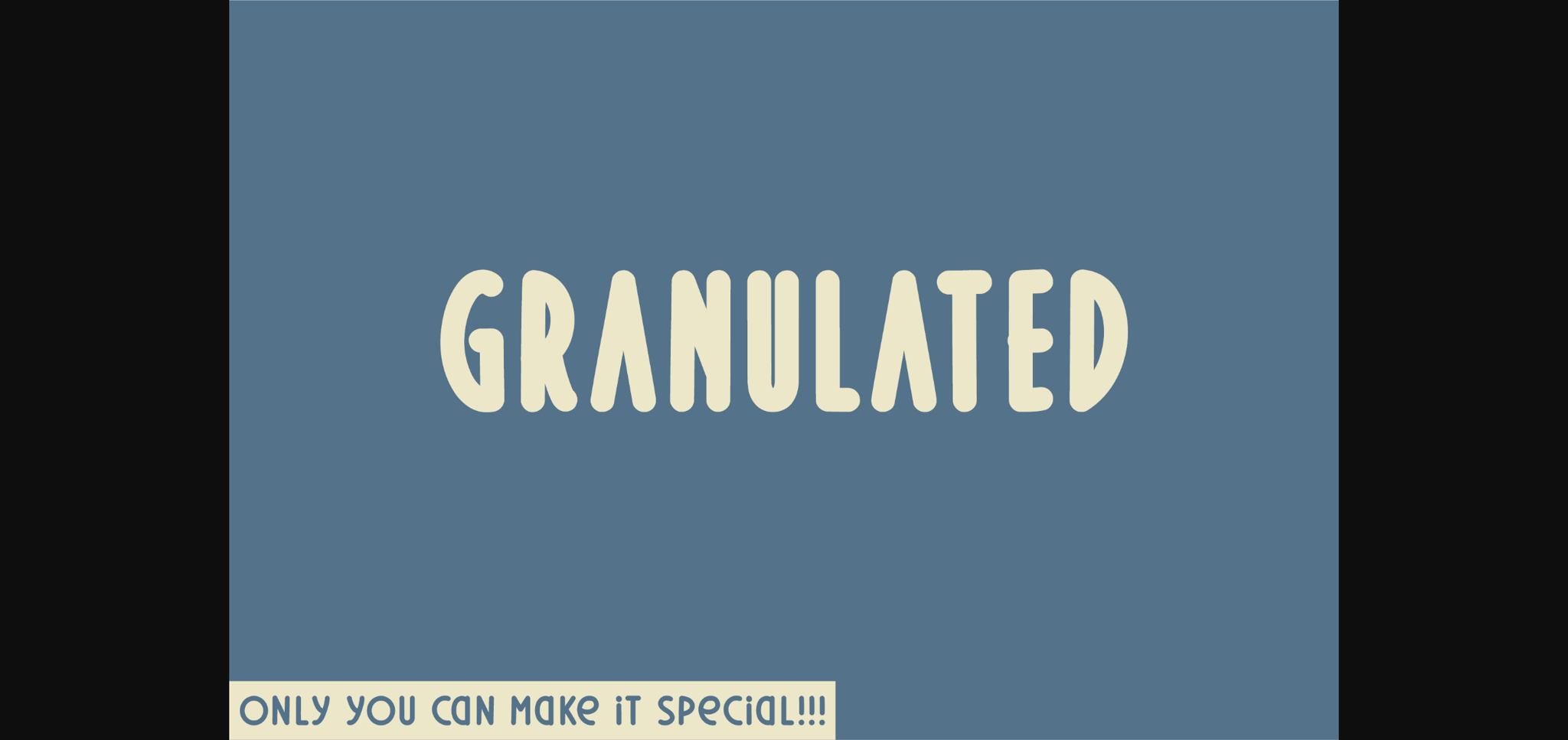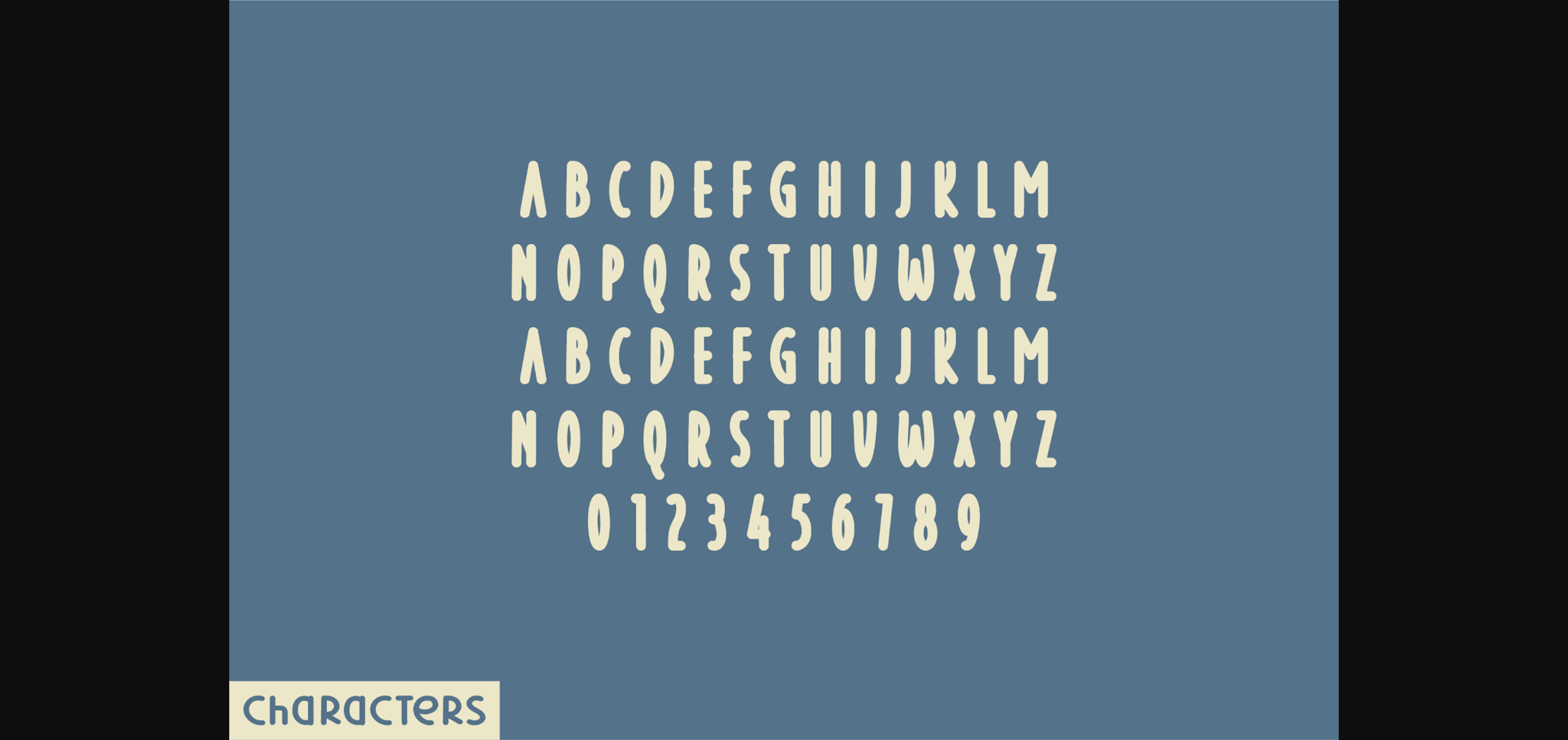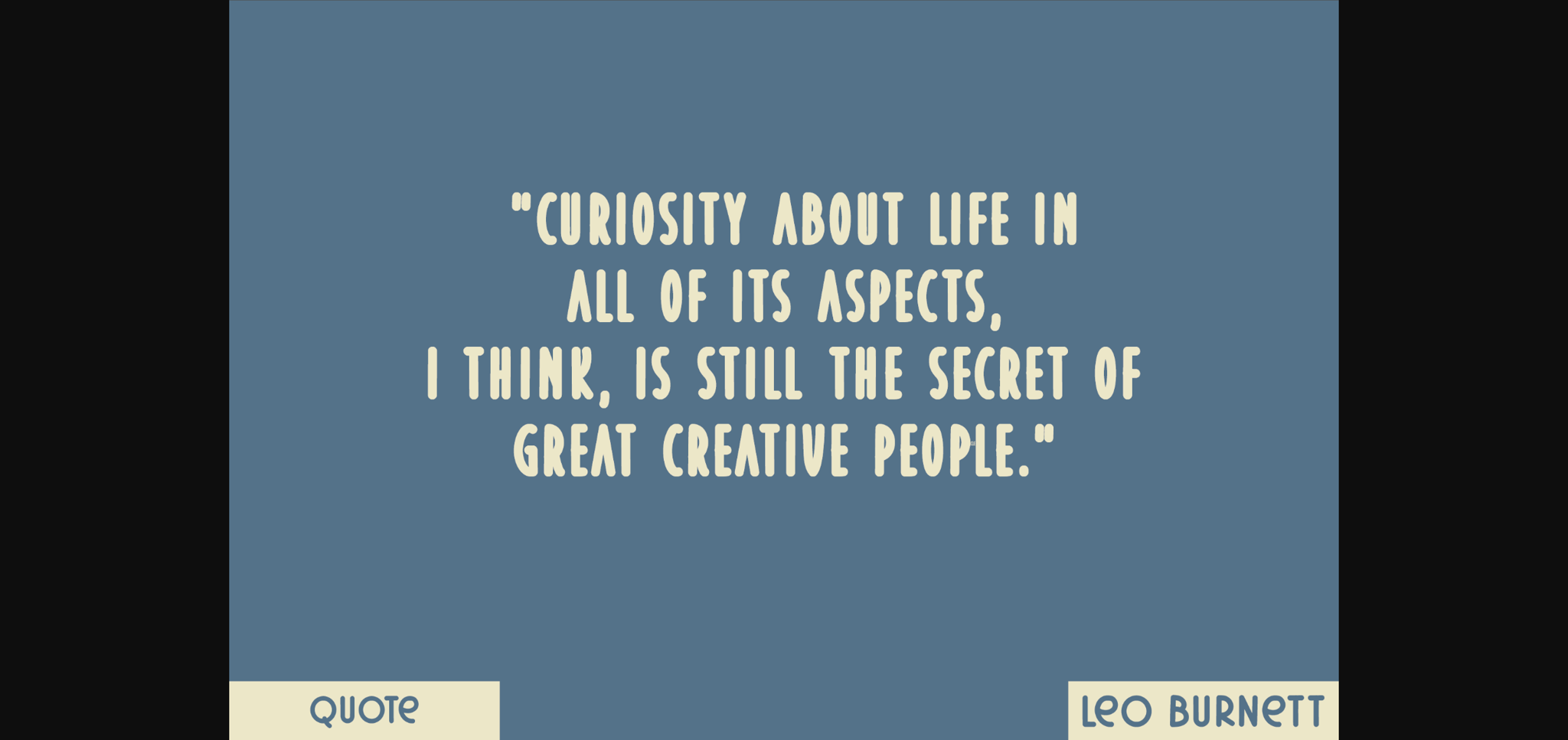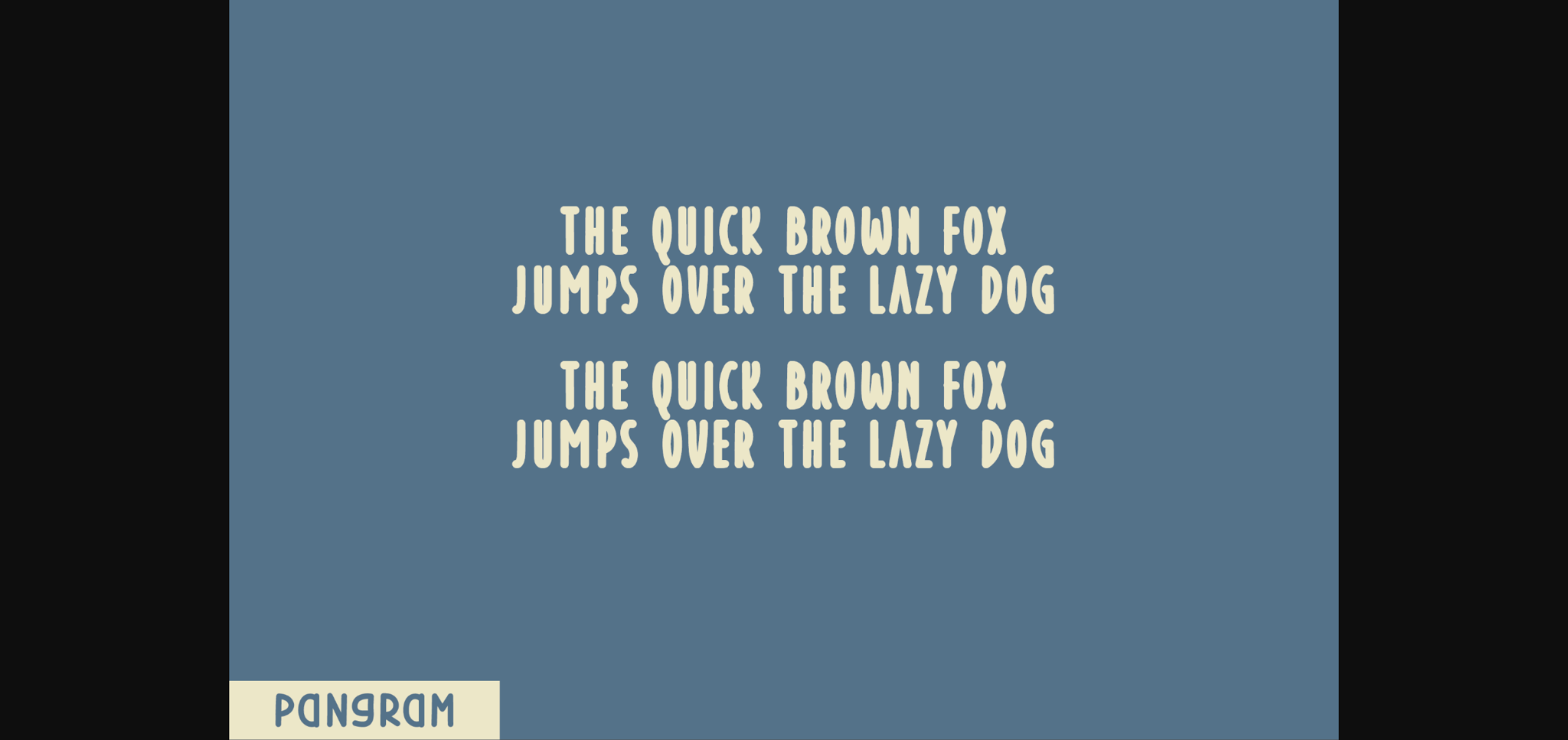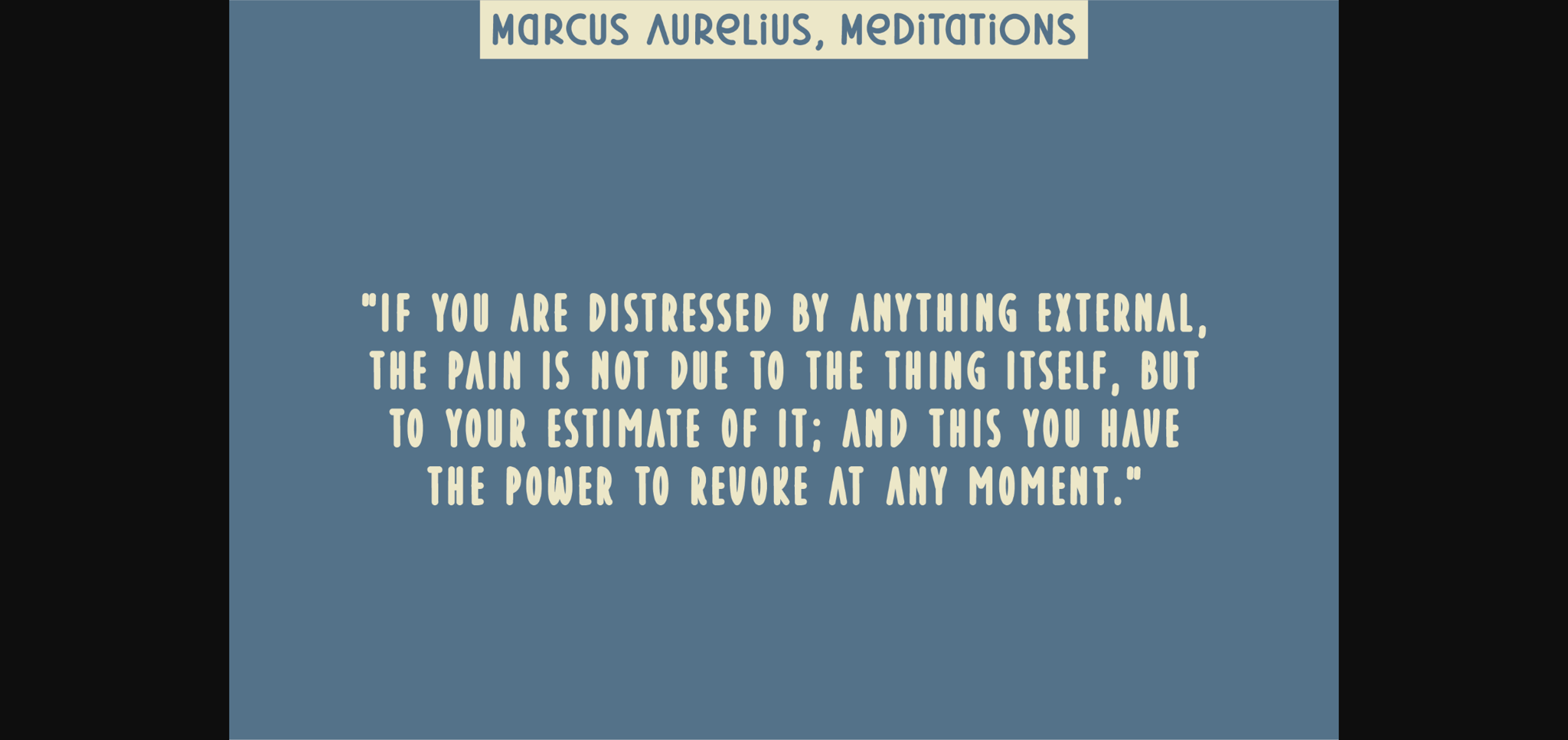
HomeSans Serif FontsGranulated Font Sans Serif Fonts Granulated Font FacebookXPinterestWhatsApp 1 of 7 ... Granulated Font Poster 2... Granulated Font Poster 3... Granulated Font Poster 4... Granulated Font Poster 5... Granulated Font Poster 6... Granulated Font Poster 7... About Granulated Font Granulated is a natural sans serif font created without changing a single node in each character’s indentation – this makes this font very interesting and unique. Perfect for quotes, notes, tees, and any product design. DOWNLOAD NOW People also explored Moontose Font Sightli Font Matt Rostine Font Hello Minimalist Font Minimalis Font Bluebell Baitulis Liya Hary Font School Age JNL Font 494 0 TagsGranulated Font Previous articlePeppermints FontNext articleParfait Font LEAVE A REPLY Cancel reply Comment: Please enter your comment! Name:* Please enter your name here Email:* You have entered an incorrect email address! Please enter your email address here Website: Save my name, email, and website in this browser for the next time I comment. Personal Use Free Lightning Script Personal Use Free Read more about this font BD Geminis Personal Use Free Read more about this font Pinky Personal Use Free Read more about this font Eloquence Personal Use Free Read more about this font BLOG Fonts That Capture the Spirit of New York City New York City is more than just a place—it’s an experience, a rhythm, a visual language... Transform Your Website: Elevate Your Typography with 7 Best Web Font Generators Using Fonts in Digital Marketing: Tips to Strengthen Your Brand Identity Exploring Font Trends